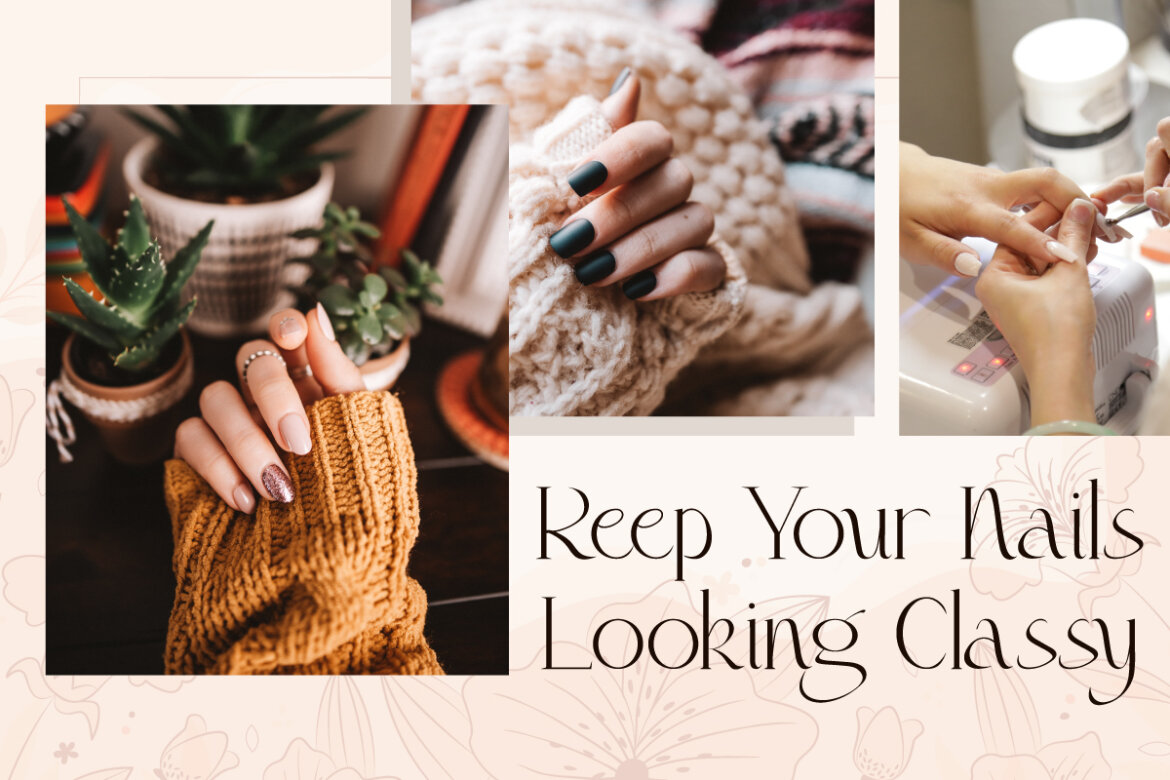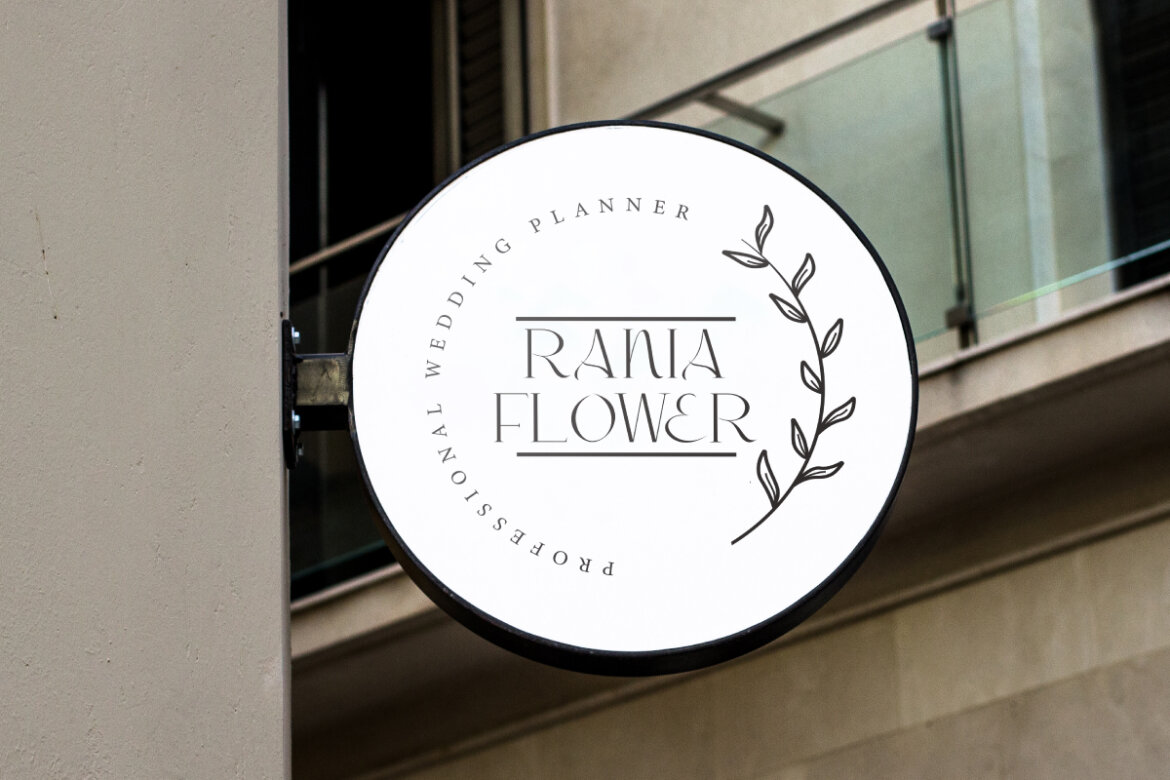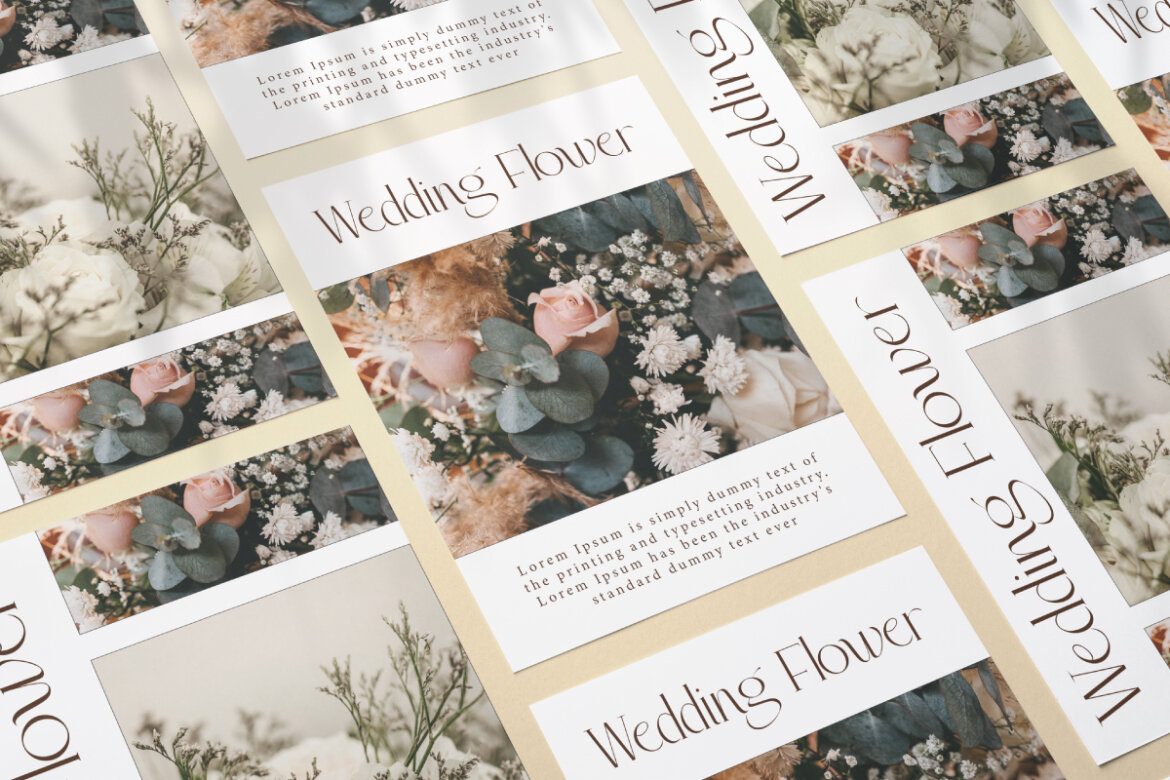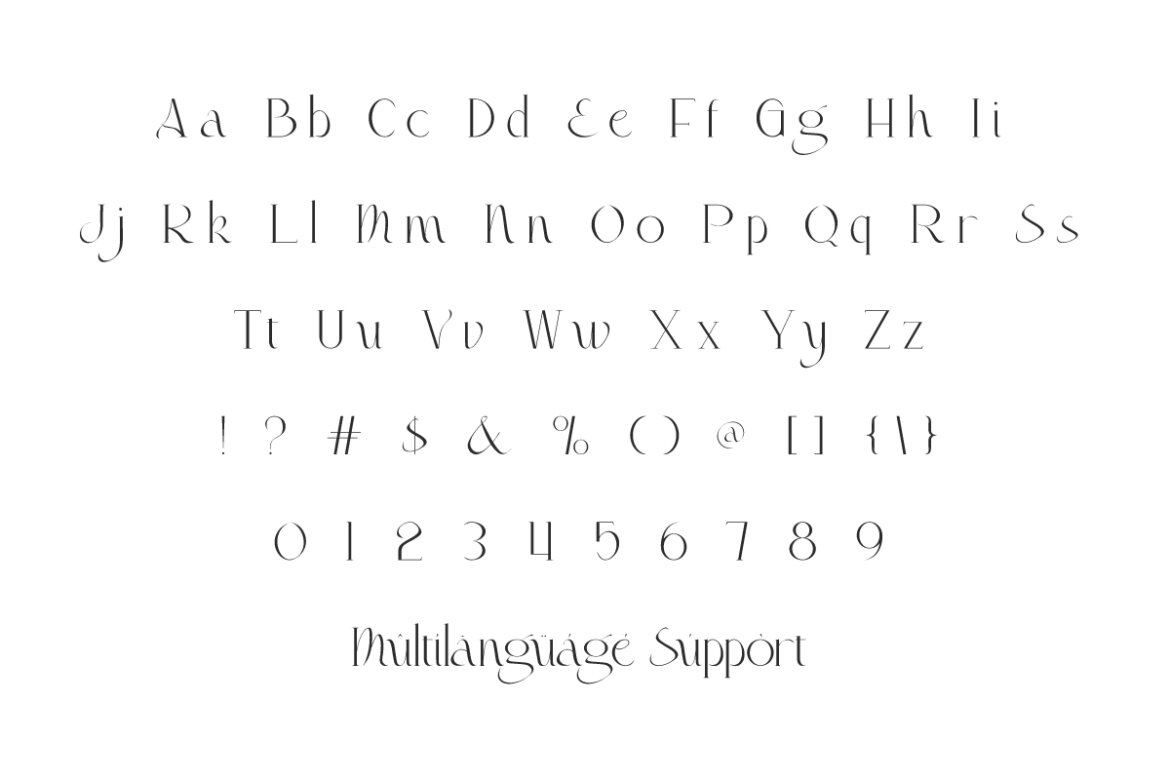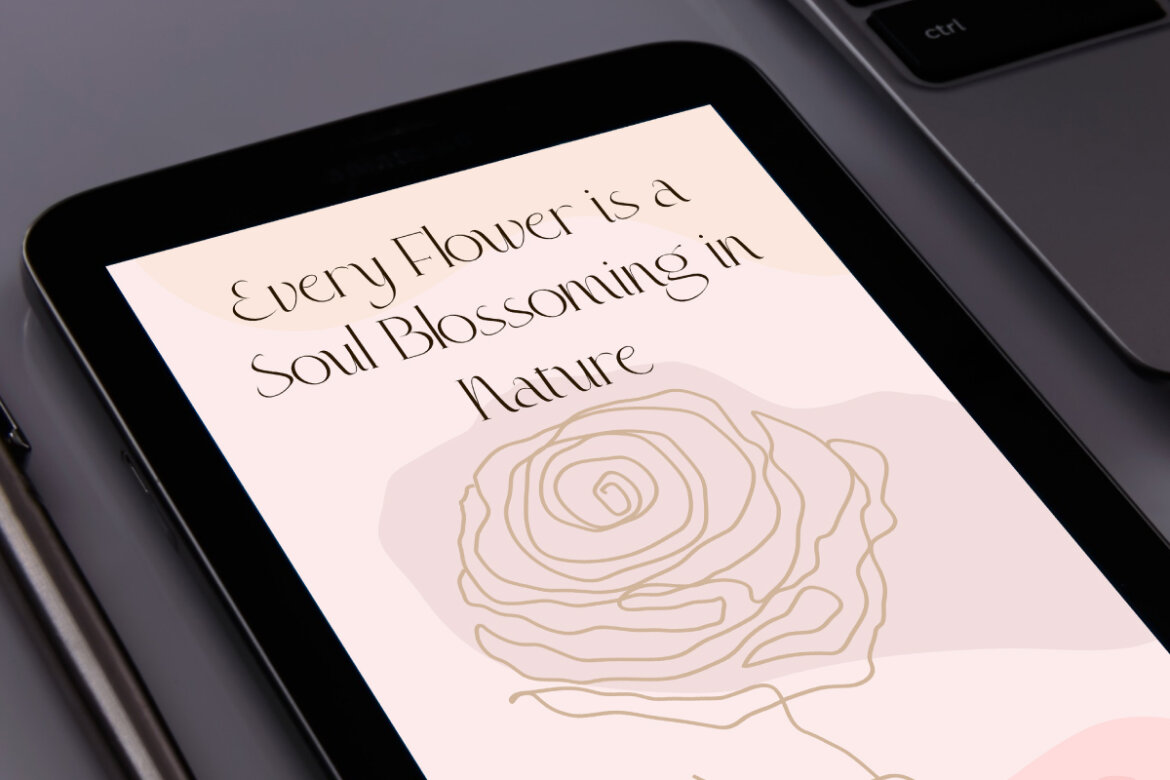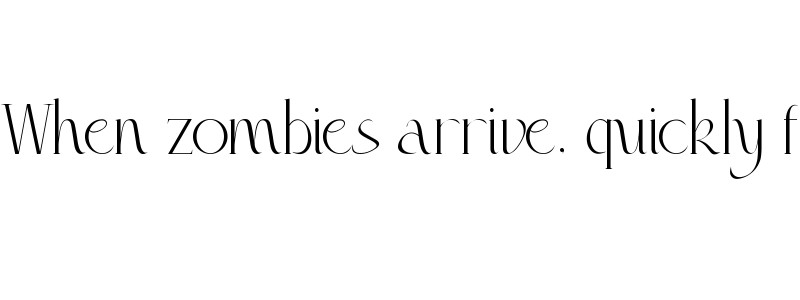
Cahaya Bunga FREE Font
Cahaya Bunga
Cahaya Bunga Font is a beautiful elegant stylish display font inspired from a flower in bloom. The font will bring an original look to whatever your new luxury projects, such as app view, blogs, book covers, branding logo, brochure, classy advertisement design, custom typography, greeting card, header, label, poster, signage, stationery, sticker, title, watermarks, wedding invitation, website, and much more.
Cahaya Bunga Font includes a complete set of Basic Uppercase and Lowercase Characters, Numbers, Punctuation Marks and Symbols. It is a modern typeface with a classic touch that blends harmoniously. The sleek letterform provides easy-to-read writing and minimal edges in its own way. This will be a great starting point as well as a refinement for your design. Perfect for industries such as florist, jewelry, perfume brands, salon, wedding, and more.